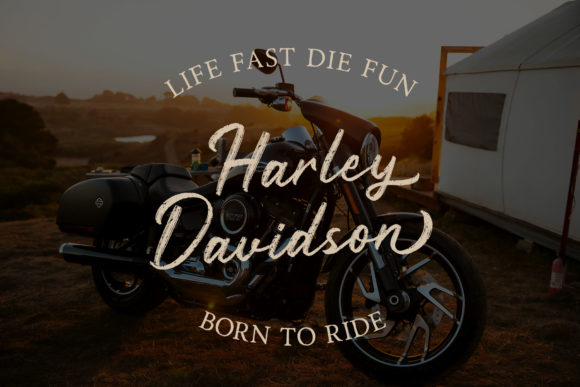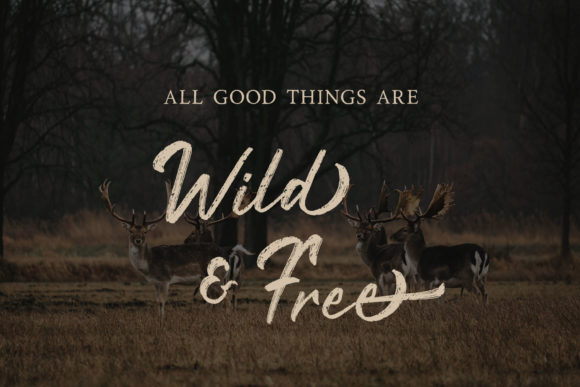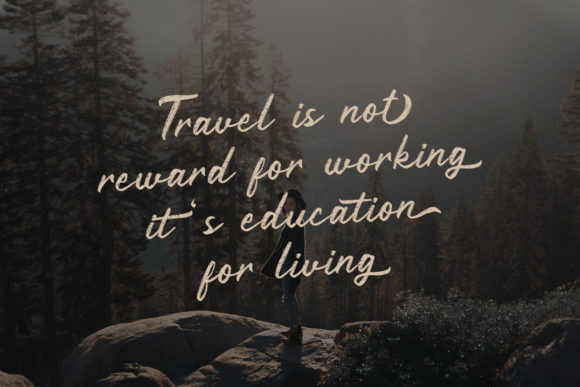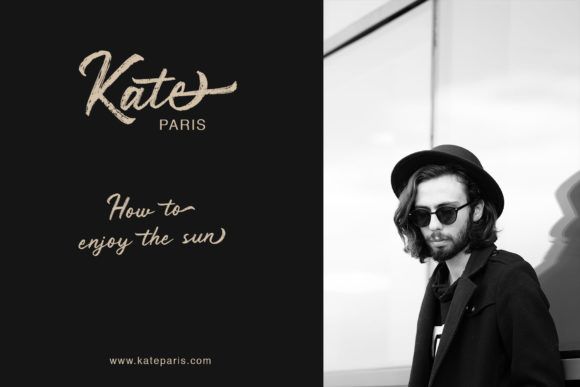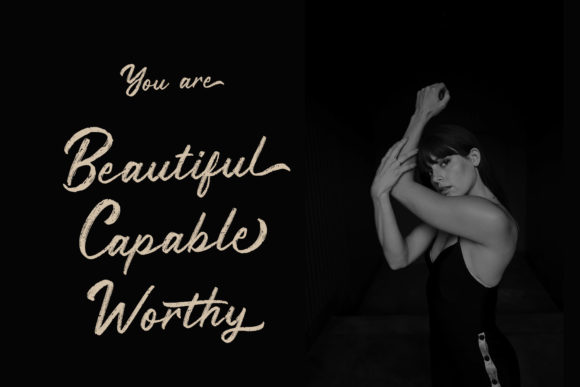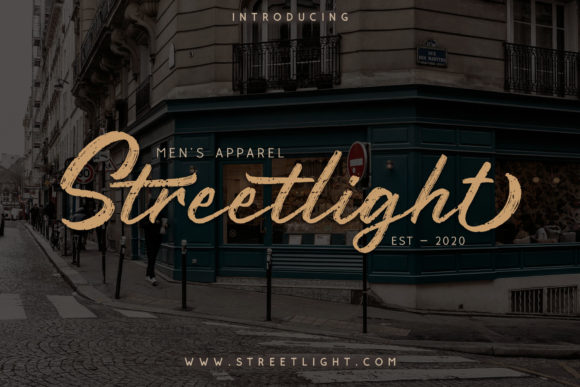
Introduction to Rustyne Font
Rustyne is a one-of-a-kind script with a distinct, rustic charm.
Use it to add a nostalgic and authentic feel to any design idea .